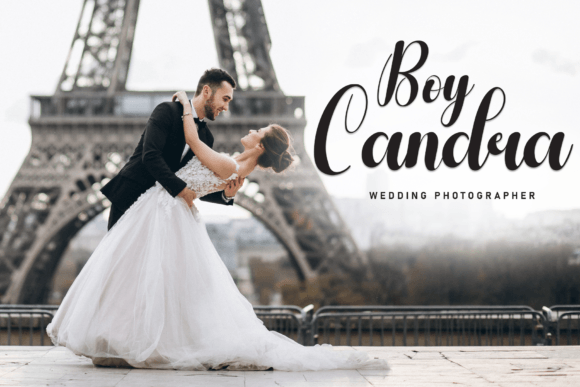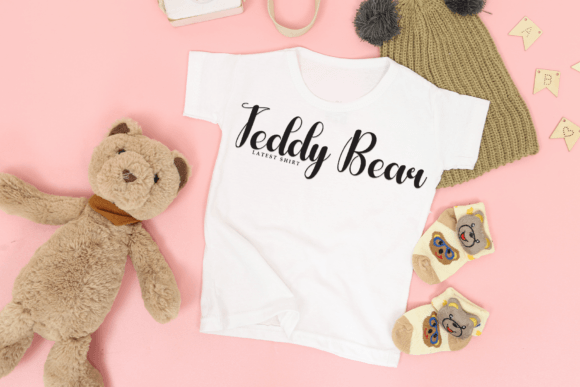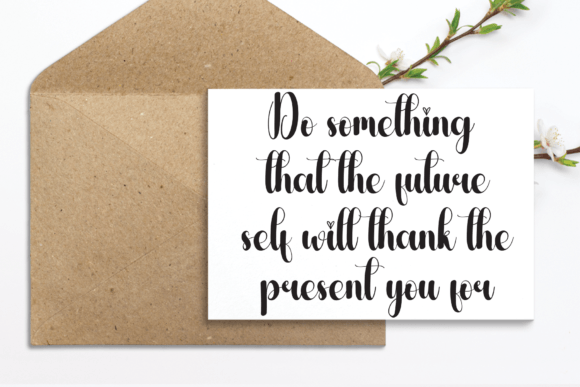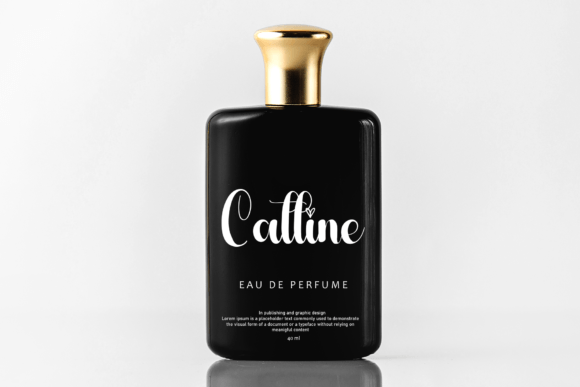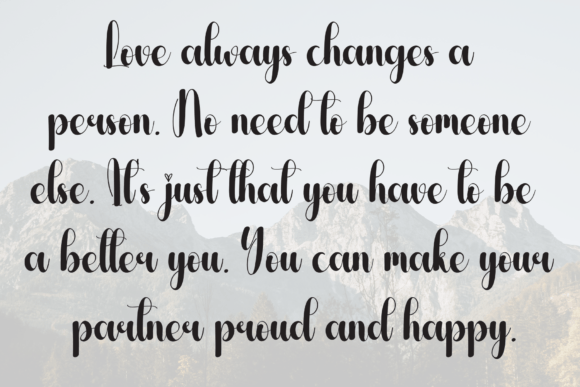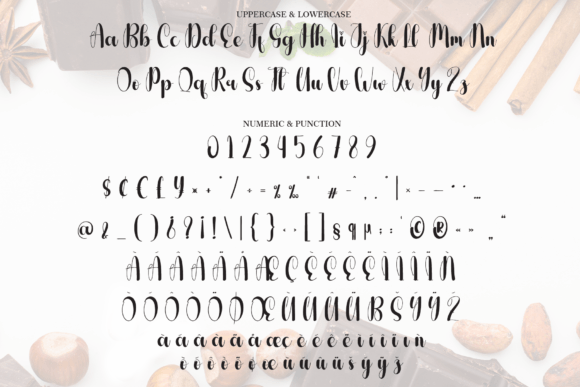
Introducing Chocolate Font: The Sweetest Addition to Your Design Toolkit
Are you on the hunt for a font that adds a touch of warmth and personality to your designs? Look no further than Chocolate Font, a sweet and friendly handwritten font that’s perfect for a variety of creative projects. In this article, we’ll dive into the world of Chocolate Font, exploring its unique characteristics, uses, and benefits for designers and crafters alike.
What is Chocolate Font?
Chocolate Font is a beautiful, handwritten font that’s designed to bring a sense of freshness and casual elegance to your designs. With its smooth, flowing lines and playful curves, this font is ideal for adding a personal touch to wedding invitations, greeting cards, and other paper crafts. Whether you’re a professional designer or a DIY crafter, Chocolate Font is sure to become a favorite in your toolkit.
Key Features of Chocolate Font
- Handwritten charm: Chocolate Font boasts a genuine, handwritten look that’s perfect for creating unique and personalized designs.
- Fresh and casual: This font’s playful, carefree vibe makes it ideal for designs that require a lighthearted touch.
- Versatile: From wedding invitations to social media graphics, Chocolate Font can be used in a wide range of design applications.
- Easy to read: Despite its decorative nature, Chocolate Font remains highly legible, making it perfect for body text and captions.
Uses for Chocolate Font
So, what can you create with Chocolate Font? The possibilities are endless! Here are a few ideas to get you started:
- Wedding invitations: Add a touch of romance and whimsy to your wedding stationery with Chocolate Font.
- Greeting cards: Create personalized, handmade cards for special occasions like birthdays, holidays, and anniversaries.
- Social media graphics: Use Chocolate Font to add a playful touch to your social media posts, quotes, and promotions.
- Branding and packaging: Incorporate Chocolate Font into your brand identity for a friendly, approachable look.
Tips for Using Chocolate Font
To get the most out of Chocolate Font, here are a few tips to keep in mind:
- Pair with contrasting fonts: Combine Chocolate Font with a clean, sans-serif font to create visual interest and hierarchy.
- Experiment with colors: Try pairing Chocolate Font with a range of colors to find the perfect match for your design.
- Don’t overdo it: Use Chocolate Font sparingly to avoid overwhelming your design. Balance it with plenty of white space and simple graphics.
In conclusion, Chocolate Font is a sweet and friendly addition to any designer’s toolkit. With its fresh, casual vibe and versatile uses, this font is perfect for creating unique and engaging designs. Whether you’re a professional designer or a DIY crafter, Chocolate Font is sure to inspire your creativity and add a touch of warmth to your projects.